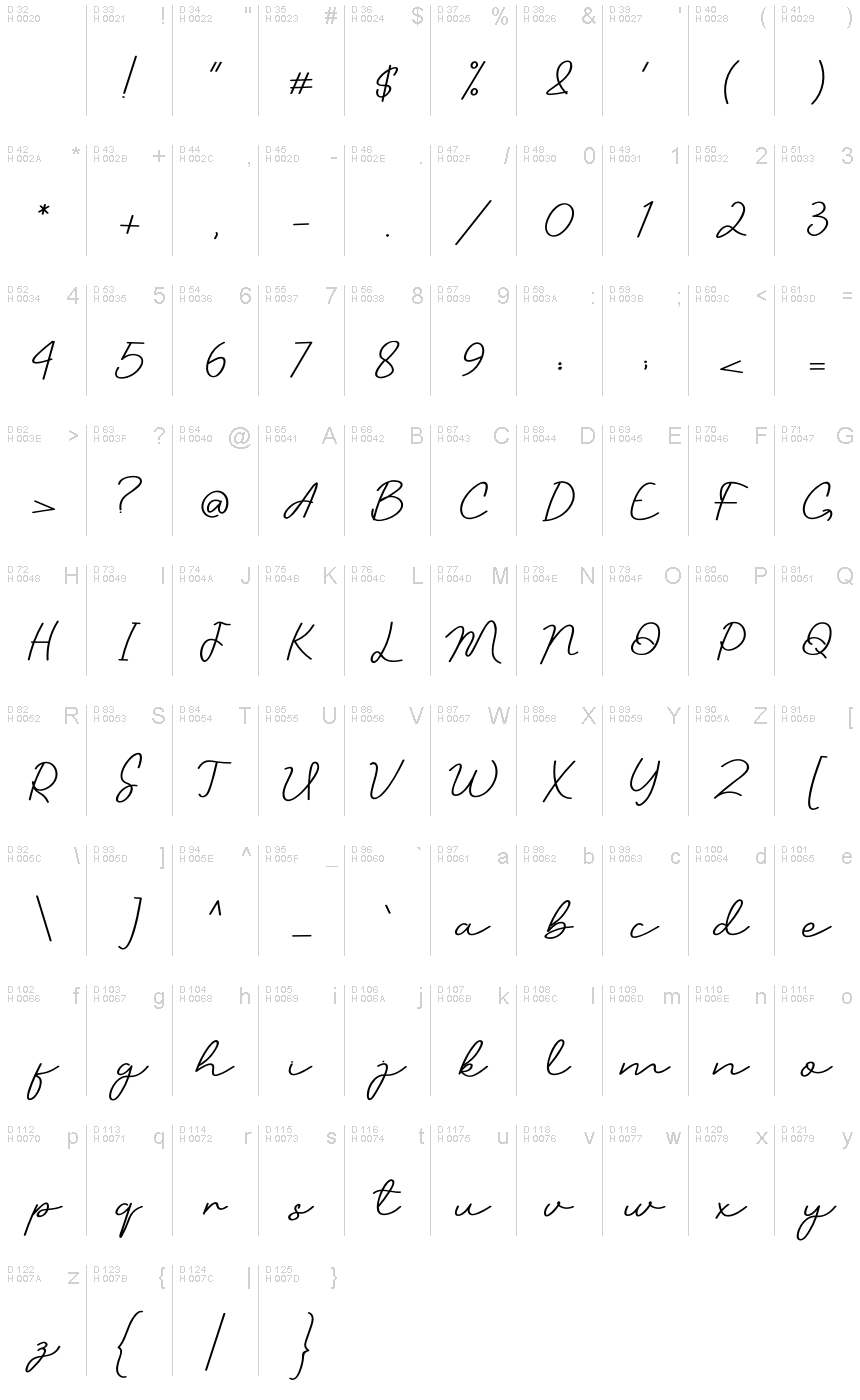
South America
The South America font is a handwriting typeface created by Etik Fatimah that has been designed with a light and airy structure. This free downloadable font is able to provide an individualized feel to any design project as it represents the idea of movement and smoothness perfectly well. The elegant thin lines and gentle curves which it consists of make it perfect for such purposes as invitations, greeting cards or even personal branding.
Don’t miss an opportunity to improve visual attractiveness adding some elegance into them with refined charm brought by South America. If you love handwritten fonts then this one is definitely worth trying out since each sign embodies beauty combined with true authenticity.